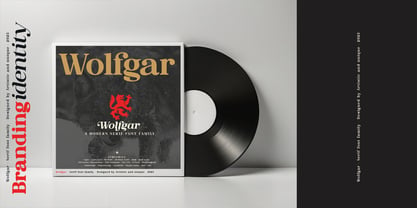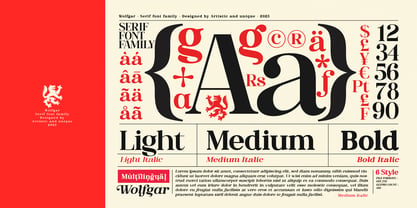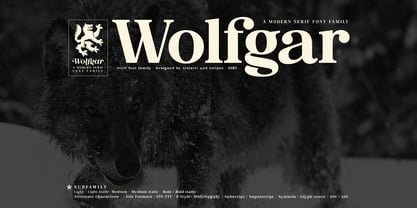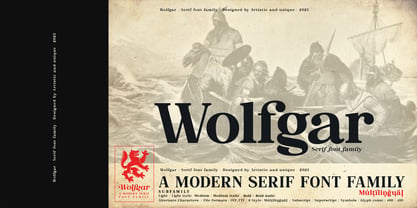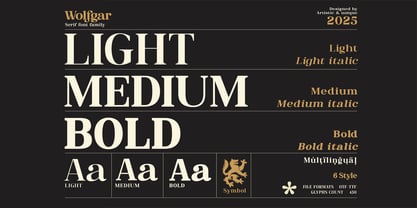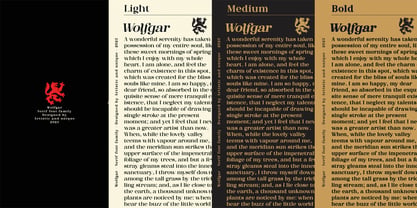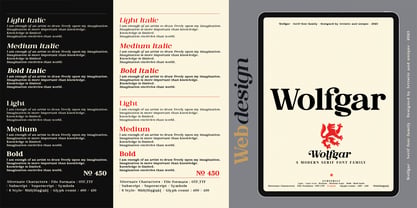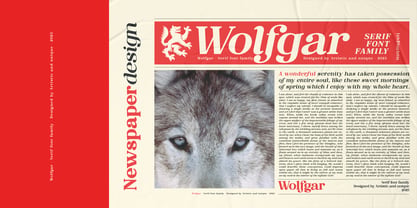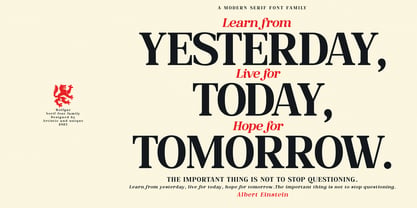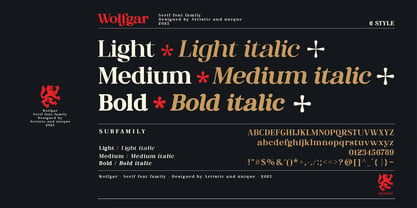
Wolfgar
The Wolfgar Font Family was designed by Osman Taner Kucukgenc and published by Artisticandunique. Wolfgar contains 6 styles and family package options. More about this family
Wolfgar - Serif Font Family
Inspired by Viking legends, this versatile Serif Font Family offers a powerful range of styles. Take your design projects to the next level with Wolfgar, a distinguished serif font family. With six unique styles and multilingual character support, Wolfgar enriches your content with alternative character designs.
This font's flexibility shines through in a wide range of applications, from editorial work and magazines to branding and web design. Seamlessly integrate standard characters for clean text or explore alternative characters for an aesthetically pleasing touch.
Whether you're designing book titles, developing brand identities, or designing stylish packaging, Wolfgar provides the versatility needed to create striking typographic compositions.
It's especially ideal for headlines, magazines, newspapers, web development, web design, movie titles, and any project requiring a touch of sophistication.
Key Features:
- 6 different styles
- Rich glyph options
- Subscript / Superscript / symbols
- Stylistic alternates
- Multilingual support
- Perfect for branding and editorial design
Suitable for web and logo design.